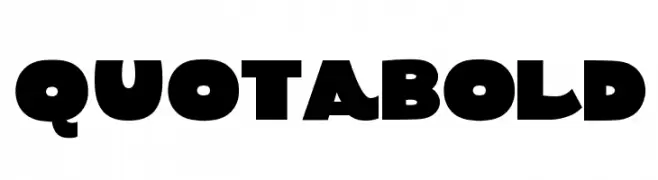
( Måns Grebäck - www.mansgreback.com )
A bold, heavy font with thick strokes and rounded edges, perfect for impactful designs.
( Måns Grebäck - www.mansgreback.com )
A bold, italicized, and condensed font ideal for impactful headlines.
( Nurf Designs )
A bold, modern font with geometric influences, ideal for impactful designs.
( Pilar Celda )
A bold, slightly condensed font with a vintage flair, ideal for impactful designs.
( Qwerks - Joanne Taylor - graphicriver.net/user/joiaco )
A bold, impactful font with thick strokes and a modern geometric influence.
( Sabrtype - creativemarket.com/Sabrtype )
A bold, condensed font with a modern and impactful style.
( Sascha Timplan - blog.stereotypes.de )
A bold, modern font with thick, uniform strokes for impactful design.
( Studio Dot by dot - Sjoerd Kulsdom - www.dotbydot.nl/fonts )
A bold, impactful font with thick, uniform strokes and a modern style.
( Typodermic Fonts - Ray Larabie - www.typodermicfonts.com/ )
A bold, geometric font with strong, angular shapes for impactful design.
( Typodermic Fonts - Ray Larabie - www.typodermicfonts.com/ )
A bold, impactful typeface with thick, block-like characters.